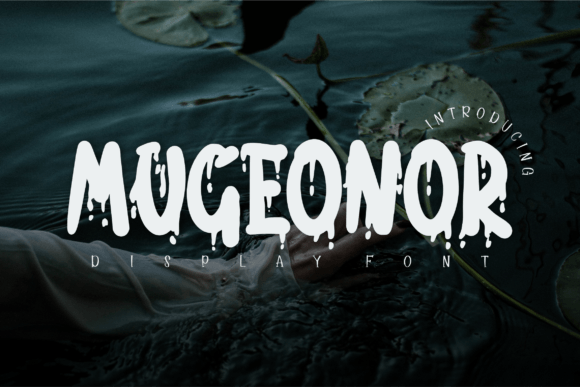
Behold, Mugeonor Font, a spellbinding display font crafted with the utmost care to captivate your imagination and ignite your creativity. Step into a realm of enchantment where words transform into captivating spells, leaving an indelible mark on your audience. We invite you to embrace the mystique of Mugeonor, a font that transcends the ordinary and opens up a gateway to extraordinary expression.
As you delve into this enchanting display font, you'll discover a world of possibilities, where each letter dances with elegance and grace. Like a sorceress's whispered incantations, Mugeonor's glyphs weave magic onto your designs, bestowing an aura of intrigue and wonder. Let your imagination soar as you craft logos that emanate power, posters that evoke mystery, and social media posts that enchant and ensnare.
Mugeonor is not merely a font; it's an instrument of visual sorcery, a conduit for conjuring captivating visuals that speak directly to the soul. Unleash its power to create designs that transcend time and space, leaving your audience spellbound. Be it a portfolio showcasing your creative genius, a branding project yearning for a touch of mystique, or an invitation beckoning the adventurous, Mugeonor is your font of choice.
Dare to break free from the mundane and embrace the magical realm of Mugeonor Font. Let your imagination run wild as you design spellbinding graphics that leave an everlasting impression. As you delve deeper into the depths of this enchanting font, you'll unearth hidden treasures of beauty and creativity, unlocking the true potential of your artistic vision.